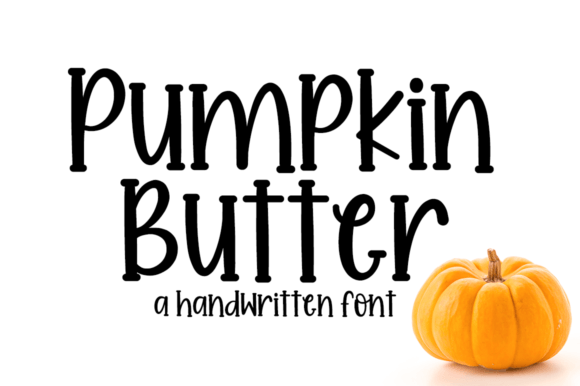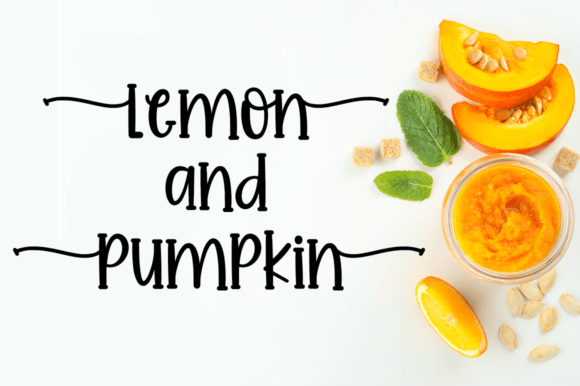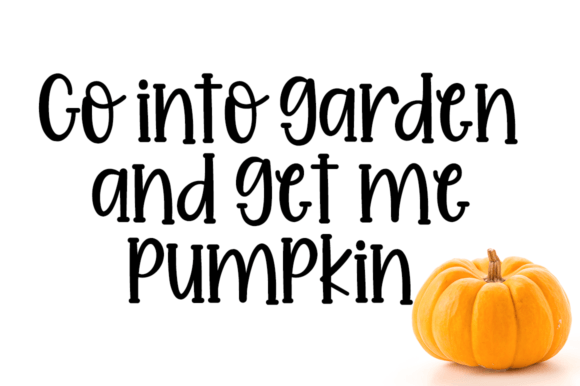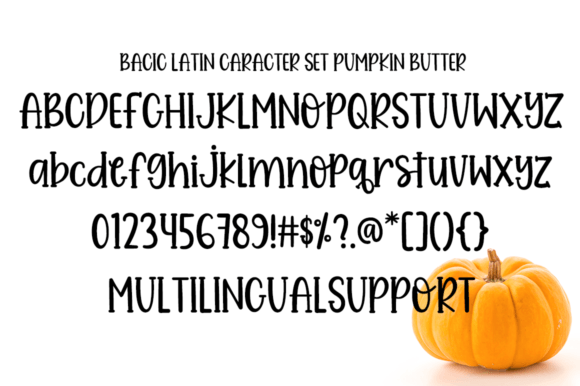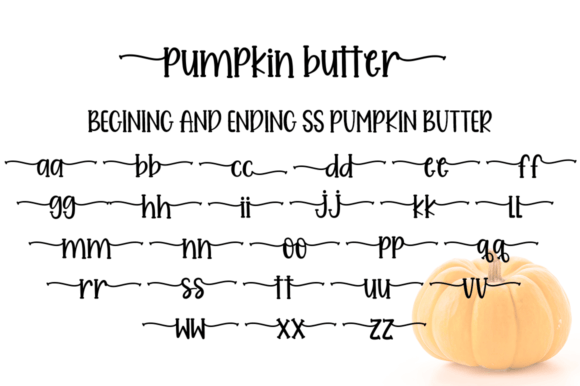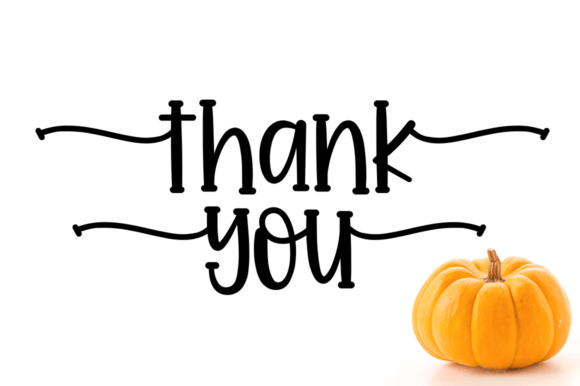
Pumpkin Butter Font
About Pumpkin Butter Font
**Pumpkin Butter** is a playful and whimsical handwritten font that radiates fun and charm. With its quirky style, this font adds a touch of uniqueness to any design context. Its versatility allows it to shine in a wide variety of projects, making it a popular choice among designers looking to infuse a sense of creativity and character into their work.
One of the standout features of Pumpkin Butter is its playful demeanor. The font’s irregular letterforms and playful strokes create a lighthearted and fun atmosphere. Its whimsical nature makes it perfect for projects aimed at children or anyone seeking a cheerful and imaginative vibe. Whether used in children’s books, playful branding, or event invitations, Pumpkin Butter adds a sense of joy and creativity to the design.
Pumpkin Butter’s versatility allows it to adapt to various contexts. Its fun and quirky look make it suitable for a wide range of applications, including posters, social media graphics, product packaging, greeting cards, and more. In posters and social media graphics, the font’s playful style can capture attention and engage viewers, making the content more lively and appealing.
The font’s PUA encoding provides access to a diverse set of glyphs and ligatures. This feature allows designers to experiment with different letter combinations and decorative elements, adding extra flair and creativity to their designs. By utilizing these amazing glyphs and ligatures, designers can create custom and eye-catching typography compositions tailored to specific design needs.
In summary, Pumpkin Butter is a delightful and versatile handwritten font that injects a sense of fun and whimsy into any project. Its playful and quirky style, combined with the convenience of PUA encoding, offers endless creative possibilities. Embrace the creativity of Pumpkin Butter and let it add a touch of joy and imagination to your designs, making them stand out in a playful and charming way.